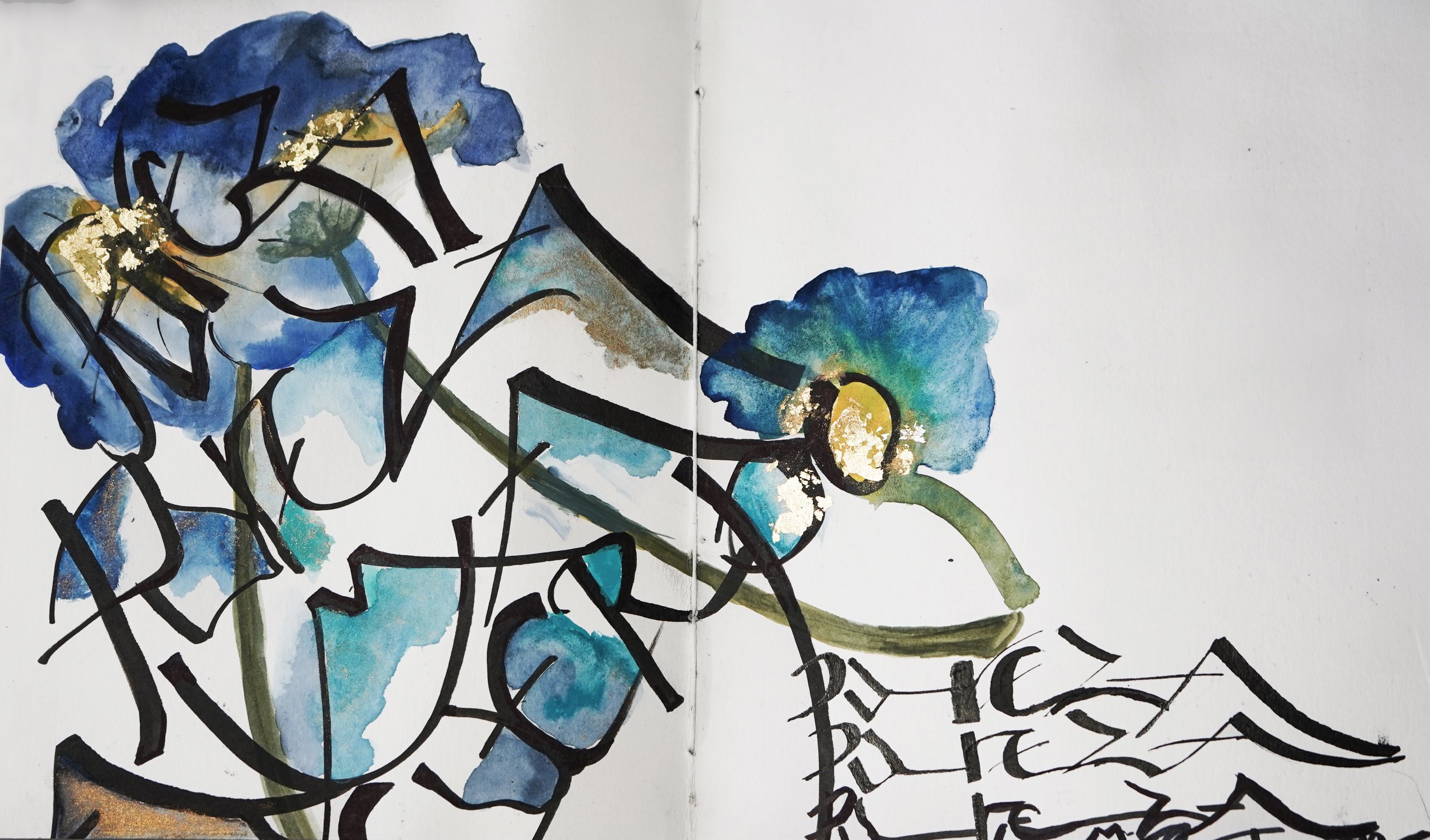
INES BUTELER | Book: 'The lotus flower'
TITLE | Book: 'The lotus flower'
This book was inspired by my painting of a lotus flower. The box which holds the book is made of cardboard combined with plasticised material. The front and back cover is a watercolour painting. The idea was to break down parts of the painting until we reached the abstract. Since the theme is about nature, I used an organic alphabet to express the thought that 'the lotus flower represents the purity of body and soul'.
Ines Buteler
Ines began 30 years ago to study painting (oil, acrylic and watercolours) as a member of the International Painting Society of the USA. After 15 years and with a passion for calligraphy, she found a mentor in Marina Soria, with whom she studied for 8 years. Marina introduced Ines to The International Society for Calligraphy & Handwriting and she began to combine painting with experimental calligraphy. Ines participated in various exhibitions in Argentina. She is a member of the International Society of Painting of USA and The International Society for Calligraphy & Handwriting where she has encountered excellent international teachers. With high interest in experimental calligraphy, she took classes in the USA and in Europe, from teachers such as Peter Thornton, Louise Lemoine, Yukimi Annand, Ives Letterm, Monica Dengo , Thomas Igmaire, and Jurgan.